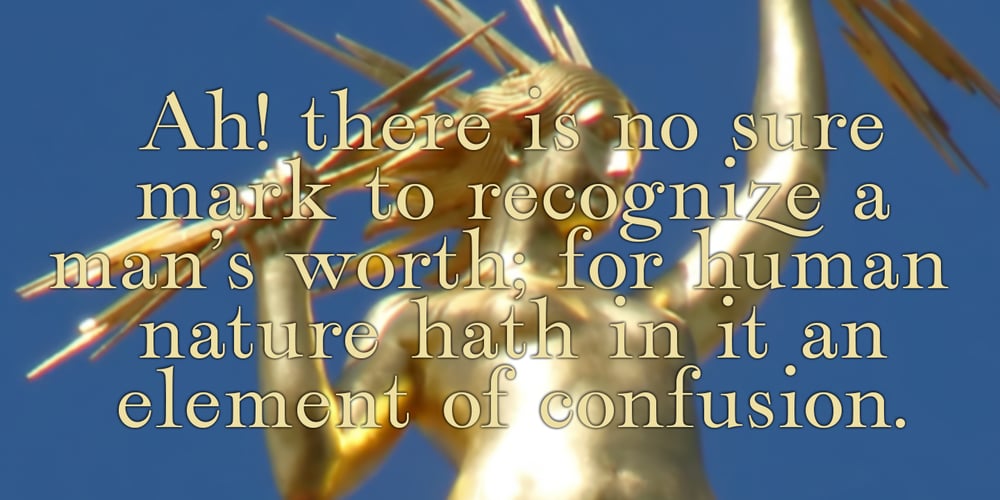
Elettra Font Family was designed by Leonardo Di Lena and published by Flanker. Elettra contains 1 styles and family package options. Elettra is a completely new type, primarily designed for display or titling. As you can see, Elettra adopting a transitional style between the nineteenth century printing typefaces and the new fonts at the beginning of the twentieth century: in particular serif are elongated, but the oblique or round shapes continuing softly on the horizontal line instead of staying vertical. Furthermore, two more glyphs were designed for each capital letter: a swashed form, which tends to embrace the following letter, and a backswashed version, that instead embraces the previous. The swash version is accessible from swash or from stylistc set 01 OTF features, while the backswashed version is accessible from stylistc set 02 OTF feature. Be aware that the stylistic set OTF features are not available on Photoshop or Illustrator.